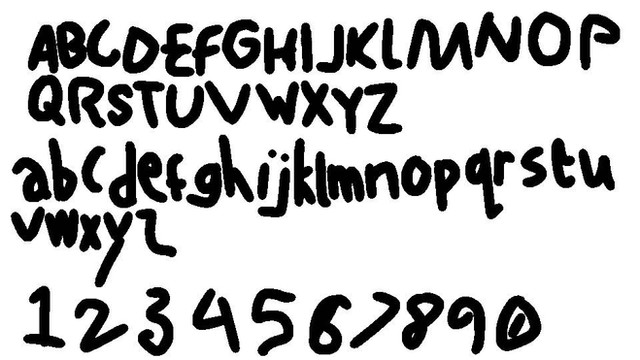
I made this on my tablet pc .. it's my first one .. so be gentleGet the file here [link]
looks good! Kerning seems OK to me, and the letters all seem distinct enough.
You did a font! W00t!